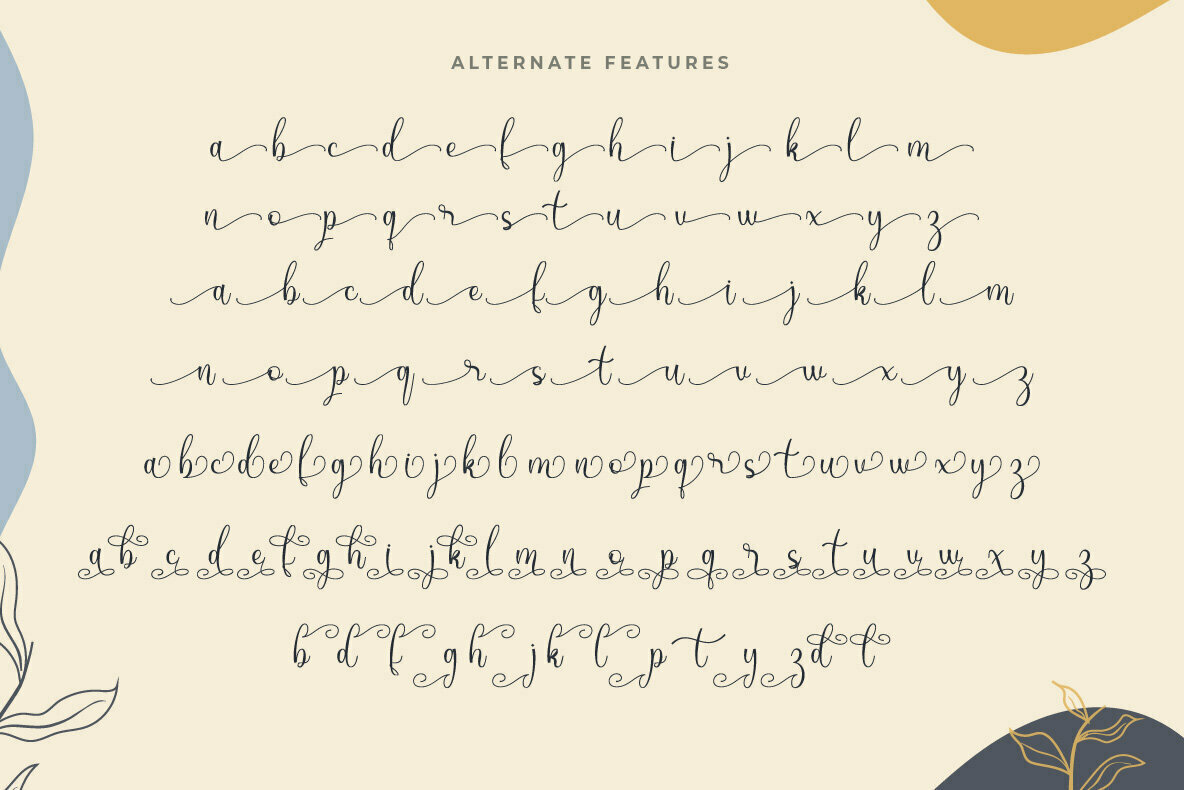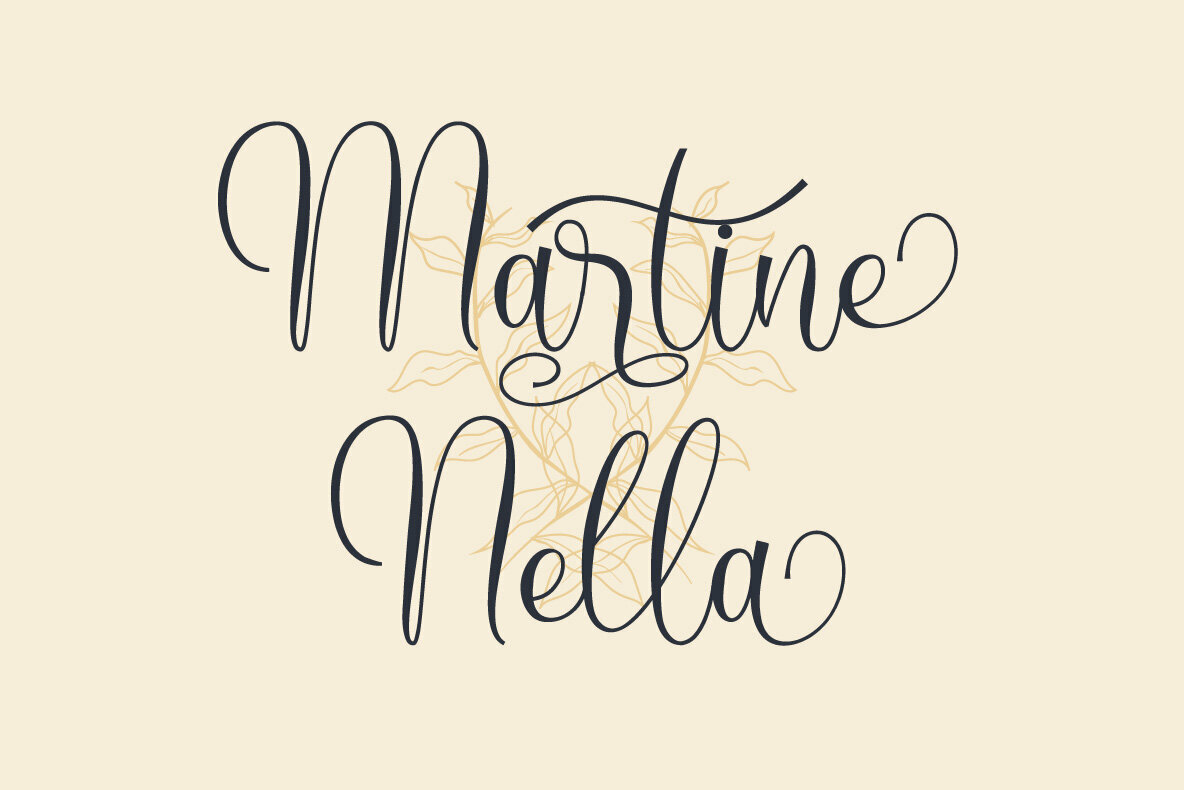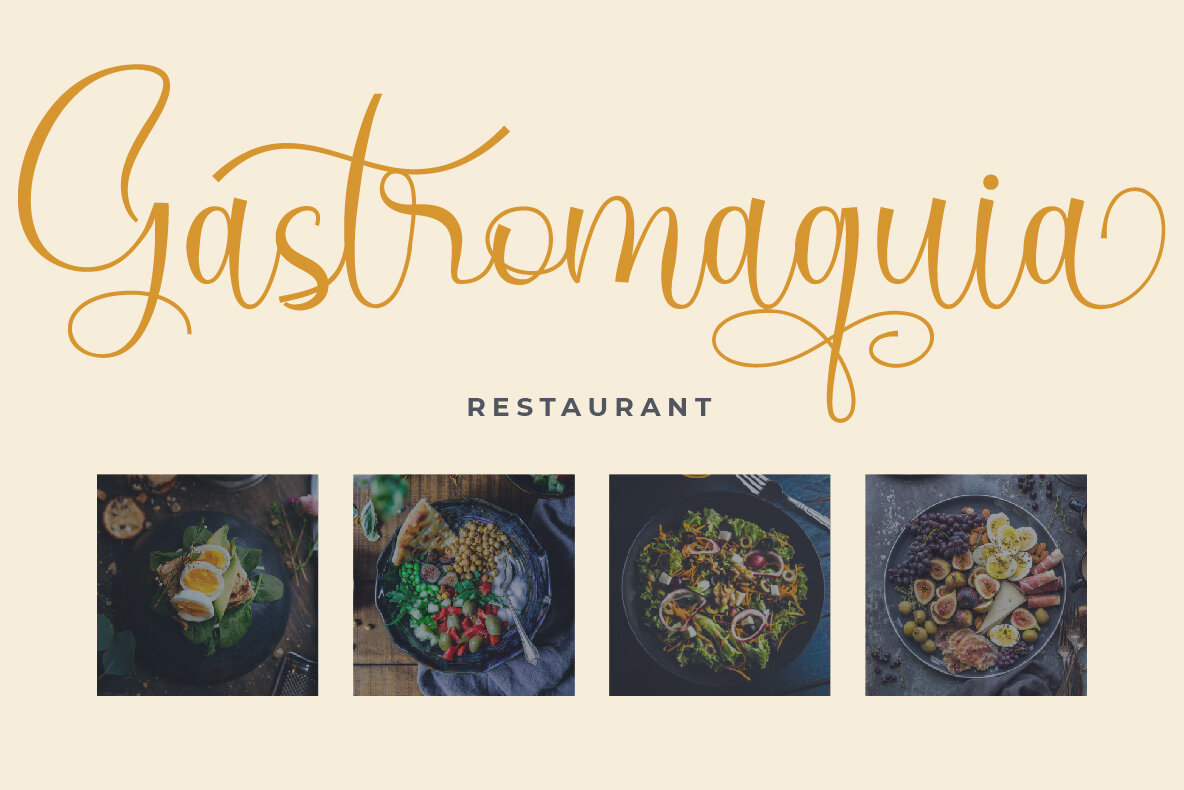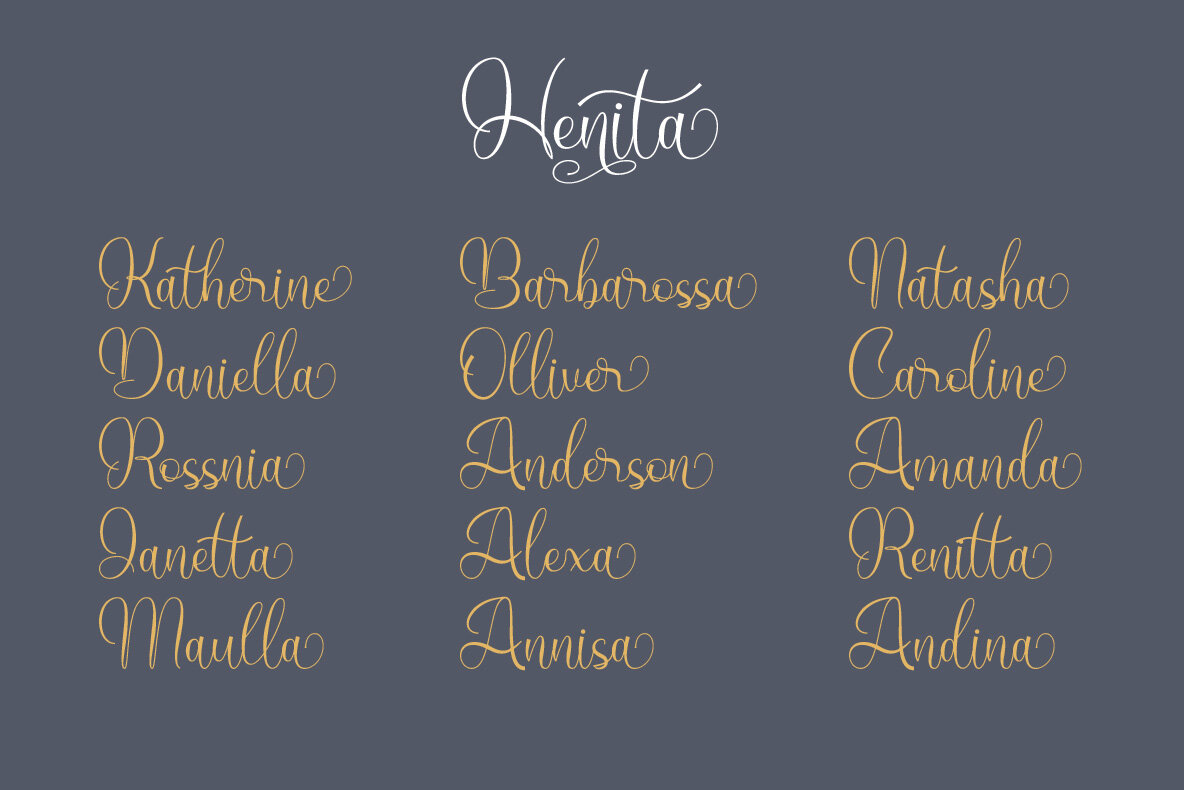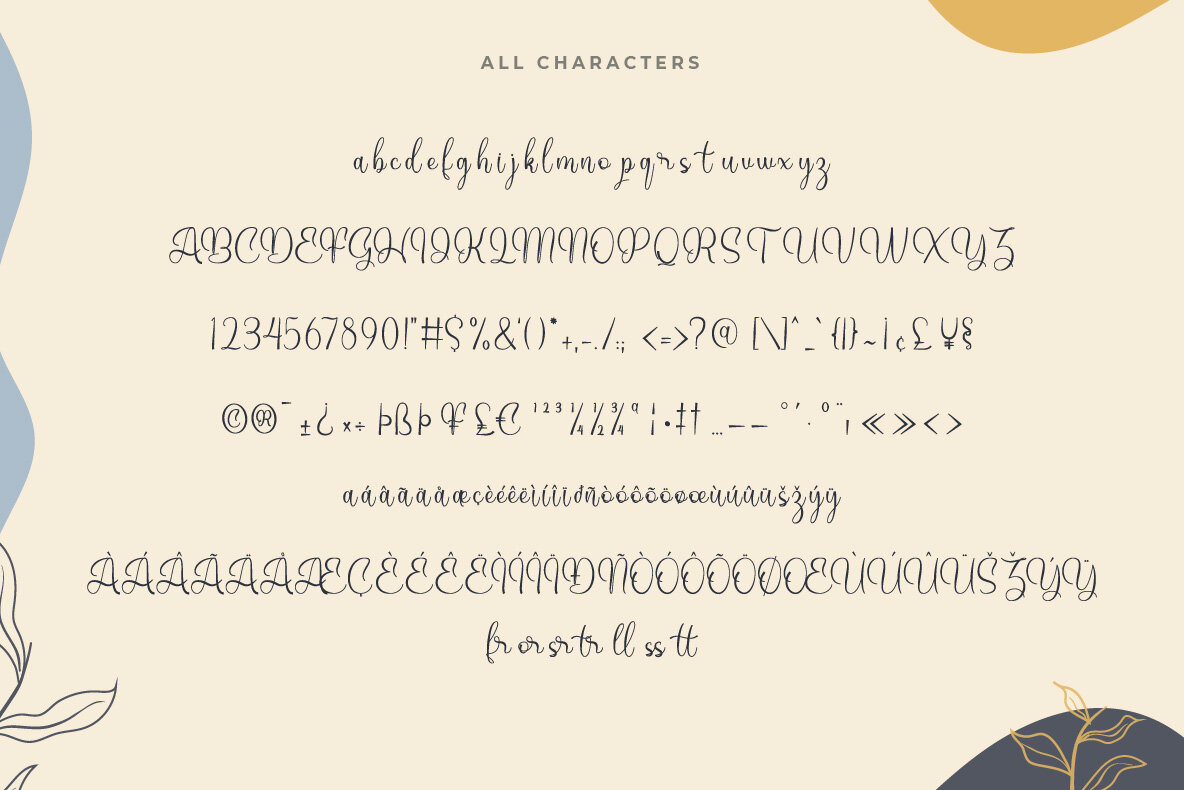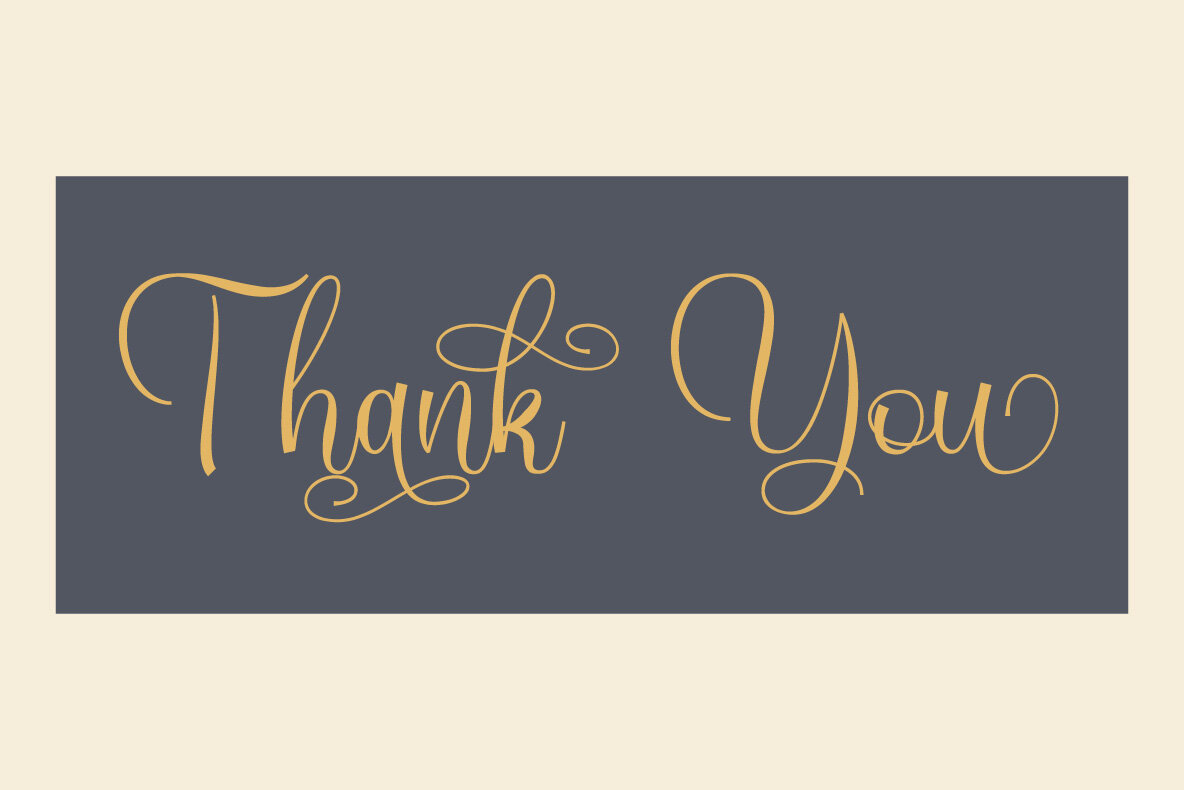
Henita
Henita is a stunning modern calligraphy typeface designed for creative and sophisticated projects. This elegant font encapsulates a contemporary calligraphy style, offering a wealth of alternative features to unleash your imagination across design endeavors. It stands as a versatile choice for a wide array of applications, seamlessly blending style with functionality. Perfectly suited for logos, labels, magazines, and book covers, Henita also enhances the allure of greeting and wedding cards, packaging, fashion pieces, and much more. This font invites you to explore diverse creative avenues, amplifying the visual impact of your designs. Features:Henita: Modern Calligraphy Typeface